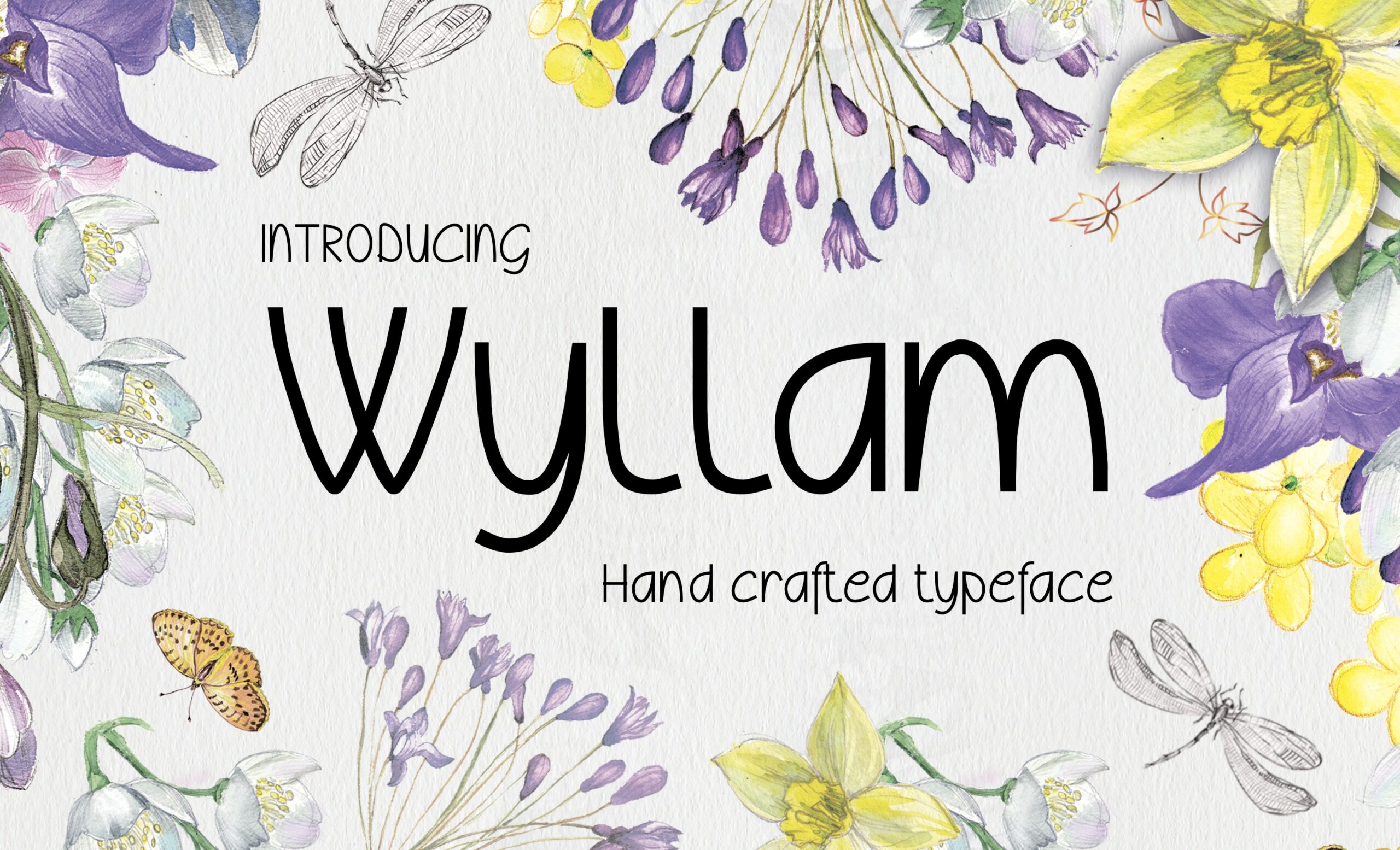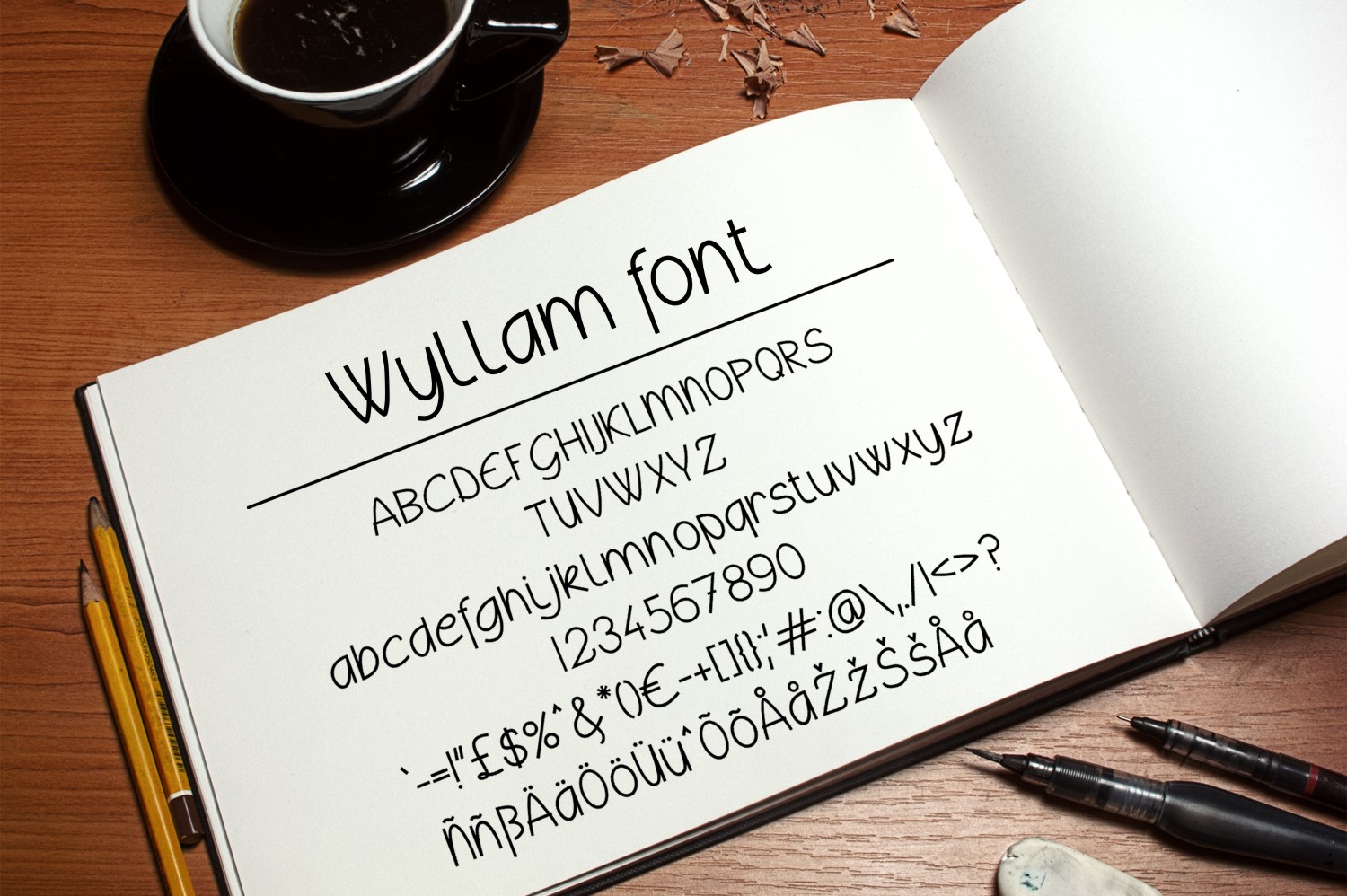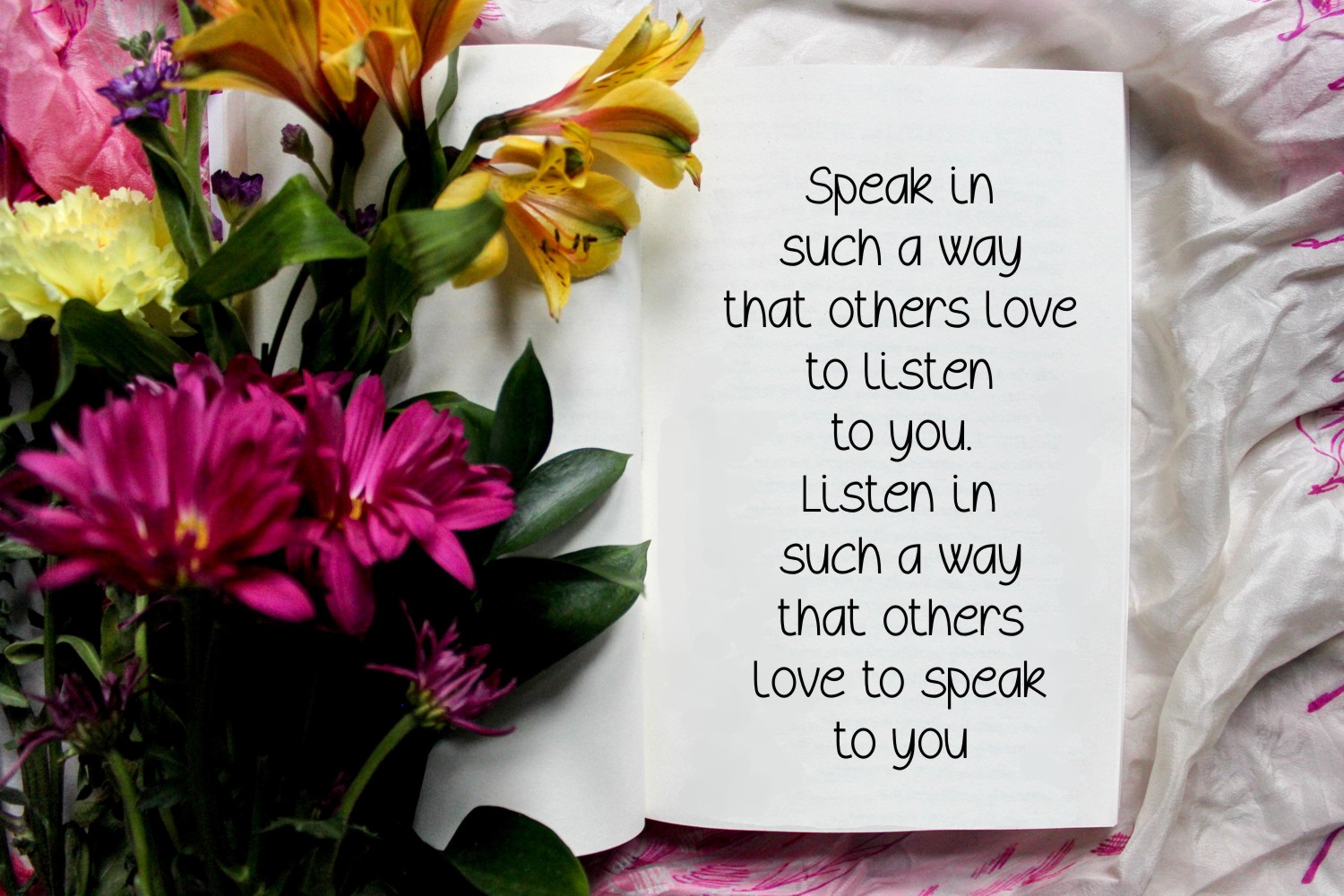
Wyllam Font
About Wyllam Font
Introducing Wyllam, a hand crafted typeface.
The Wyllam font offers lower and upper cases, both extended with European characters, numbers, punctuation and currency symbols.